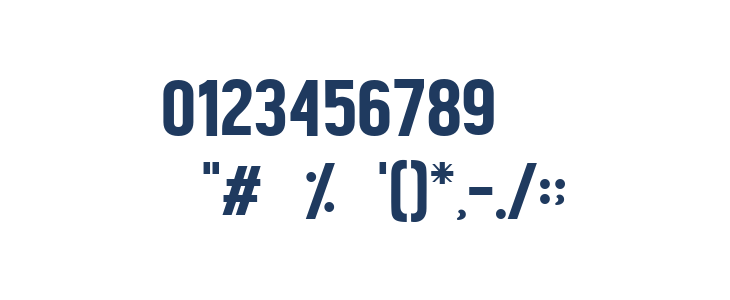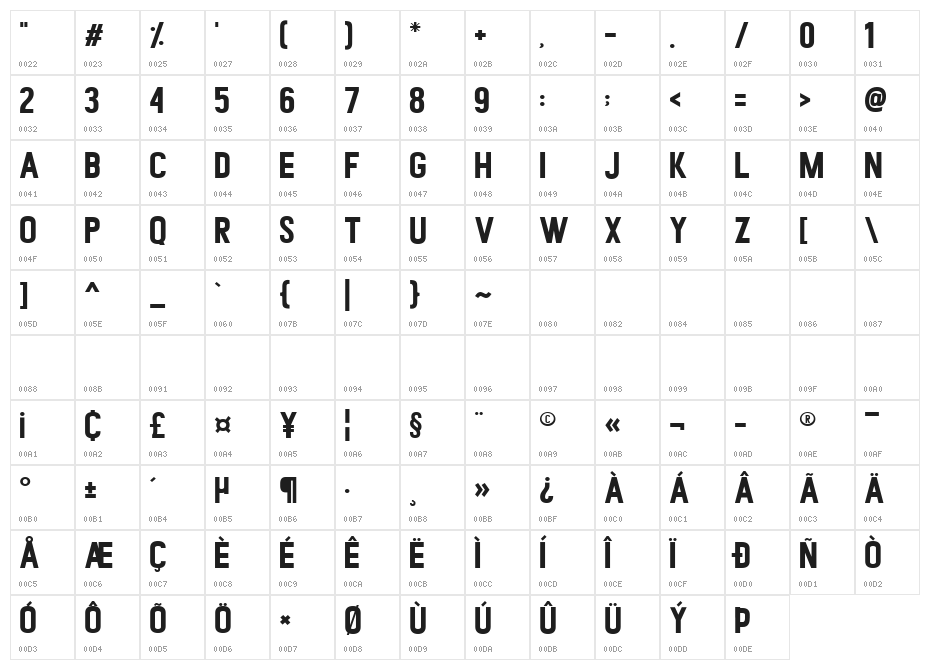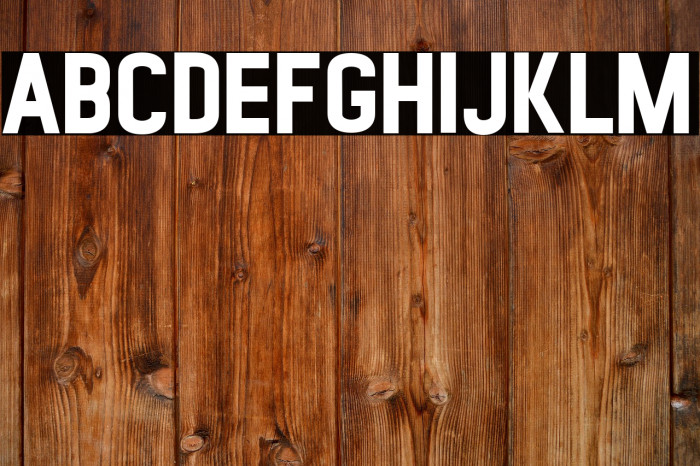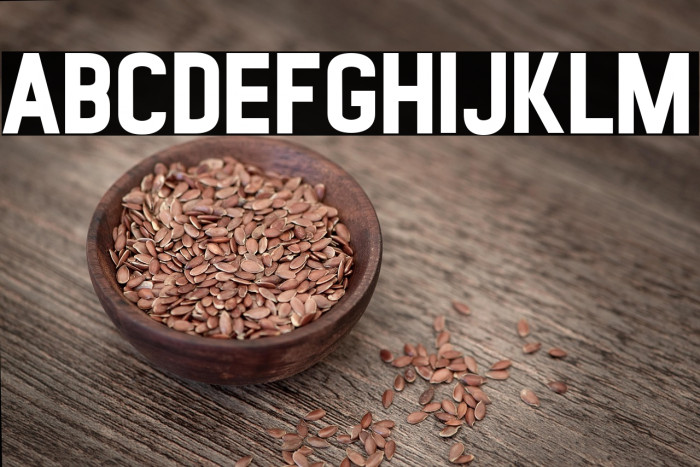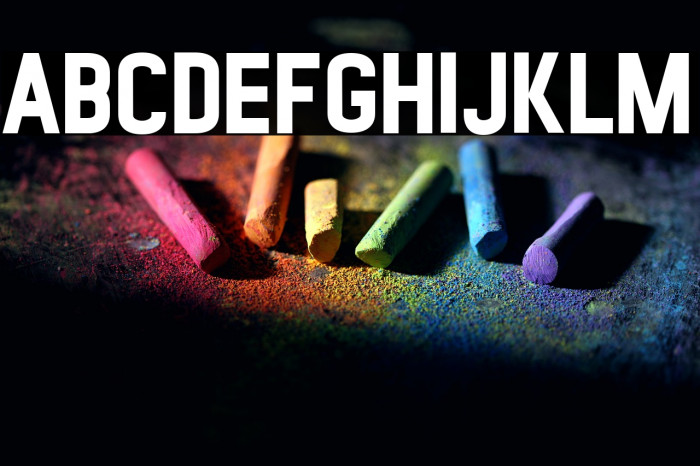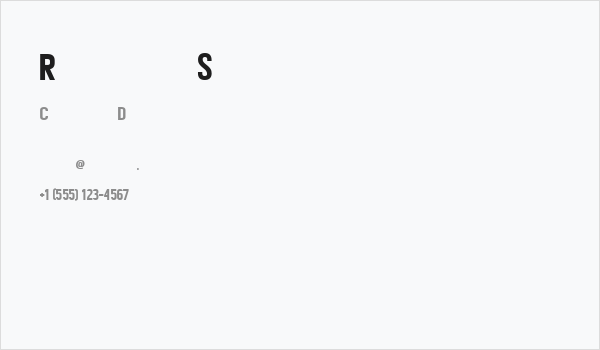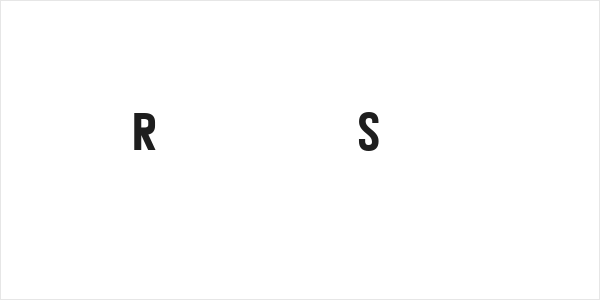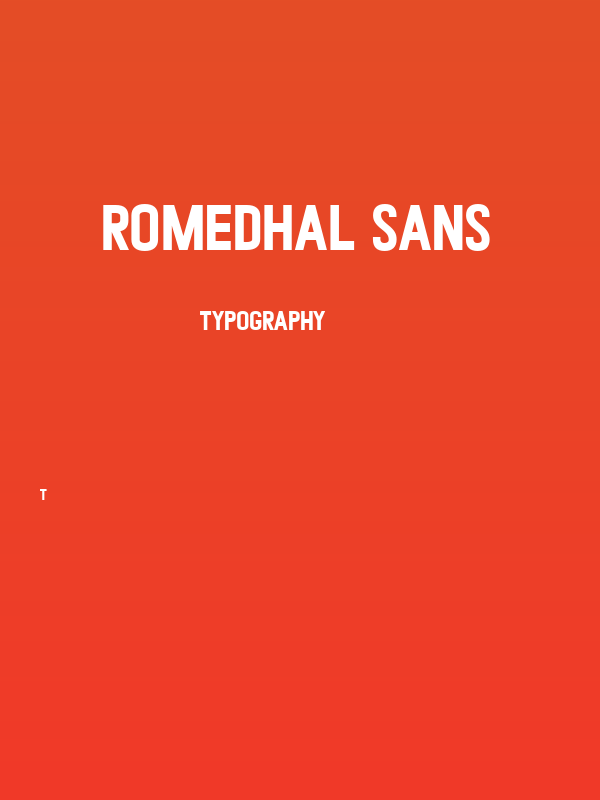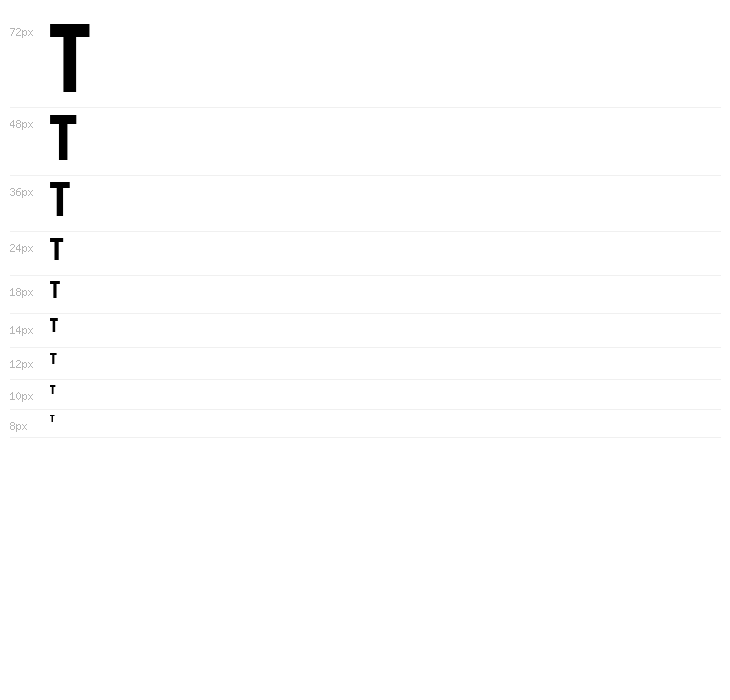
Romedhal Sans Font
Romedhal Sans Description
This font features a bold and modern sans-serif style with clean, straight lines and uniform stroke widths. The uppercase and lowercase letters are well-proportioned, providing a strong visual impact. The numerals are clear and easily distinguishable, making them suitable for various applications. Special characters are included, maintaining the same bold and straightforward design. The overall appearance is professional and versatile, making it ideal for contemporary design projects.
| Use Case | Headlines, Logos, Advertising |
| Proposed Projects | Ideal for branding, advertising, headlines, and digital media projects where a strong, modern look is desired. |